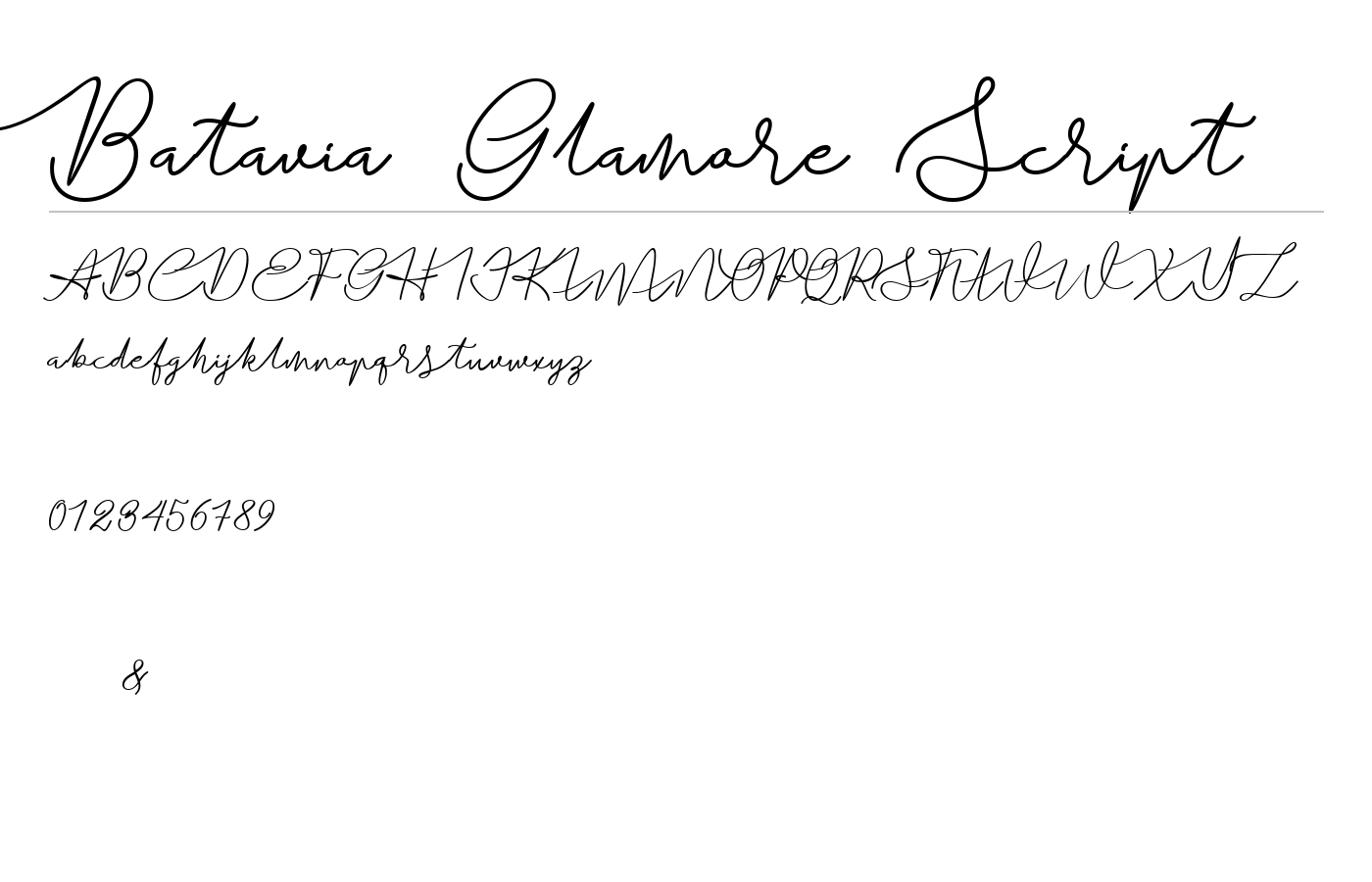
Batavia Glamore Script is an elegant, delicate script font with a graceful and flowing character. Its thin strokes and smooth, connected letterforms give it a refined, sophisticated feel, perfect for luxury branding, invitations, and stylish editorial uses. This font’s airy and light structure makes it best suited for headlines and decorative text where a touch of glamor and femininity is desired.
Batavia Glamore Script Font
About Batavia Glamore Script Font
| Designer | Zulfikar Ali |